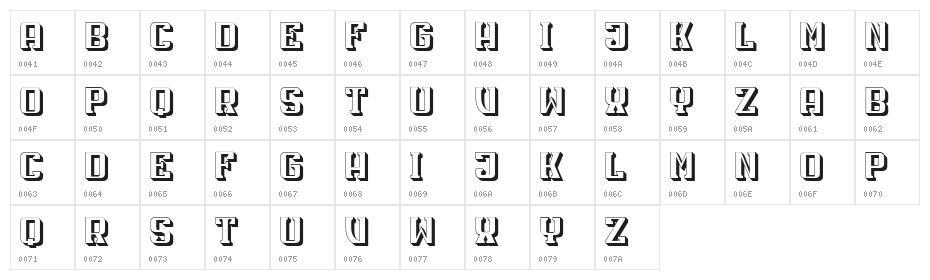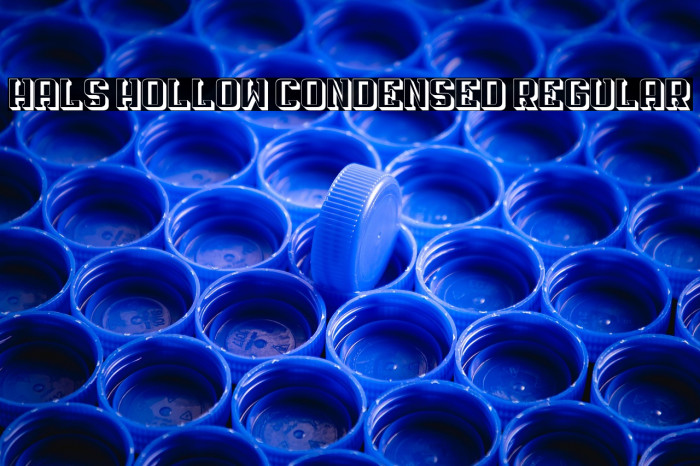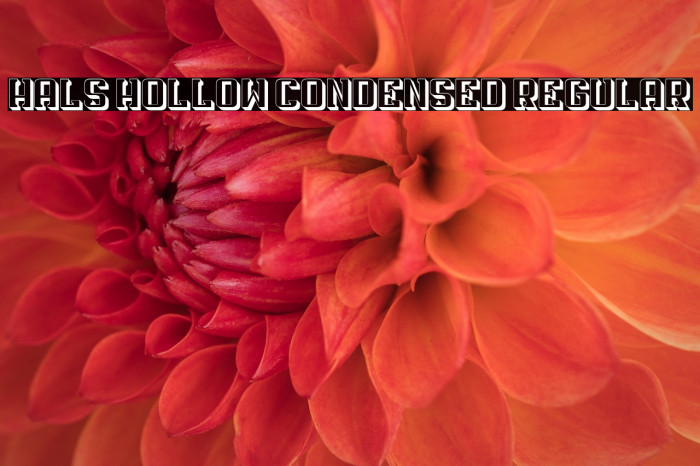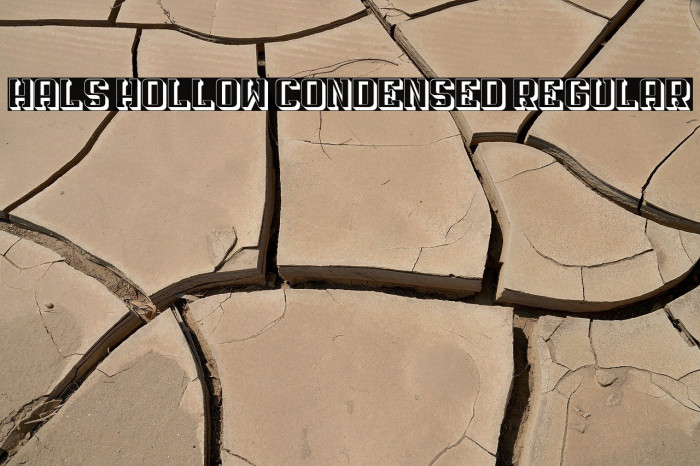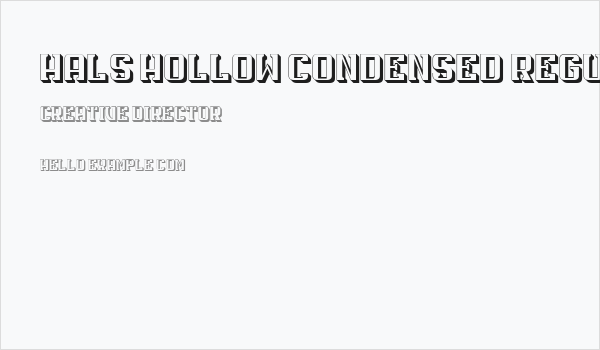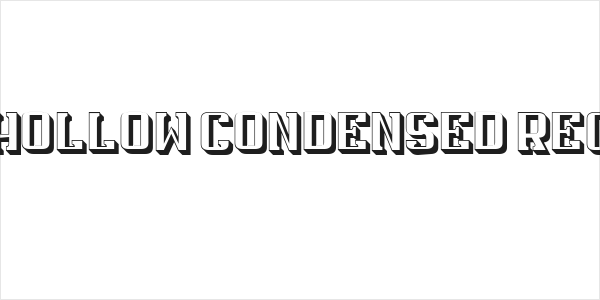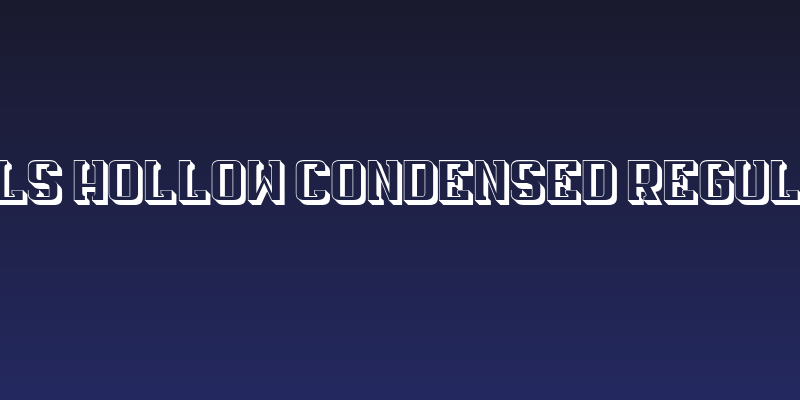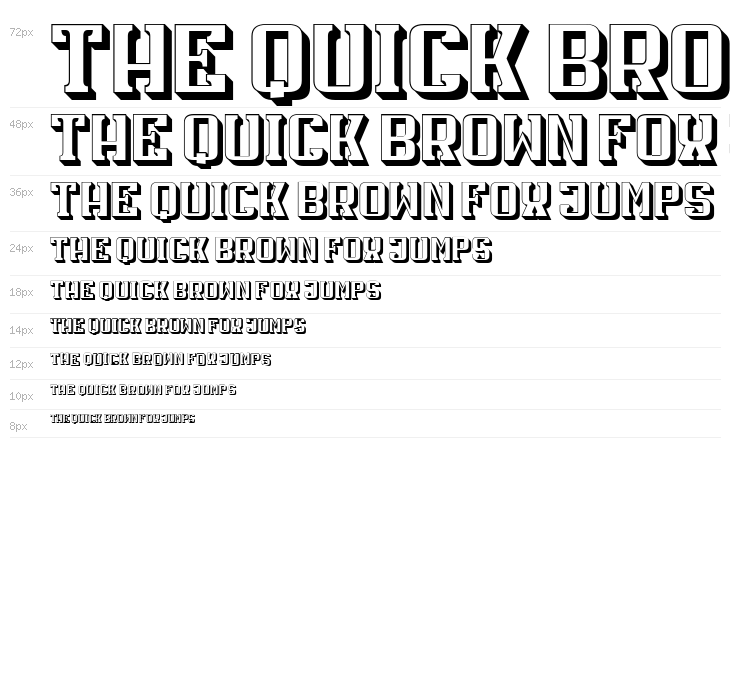
Hals Hollow Condensed Regular Font
Hals Hollow Condensed Regular Description
This font features a bold, hollow design with a condensed structure, creating a striking and impactful appearance. The uppercase letters are characterized by strong geometric shapes and thick outlines, giving them a three-dimensional effect. The font's hollow nature allows for creative use of background colors or textures to show through, enhancing its visual appeal. Its condensed form ensures that it can fit more text into a smaller space while maintaining readability. This style is particularly effective for creating attention-grabbing headlines or titles. The overall design is modern and decorative, making it suitable for a variety of creative projects.